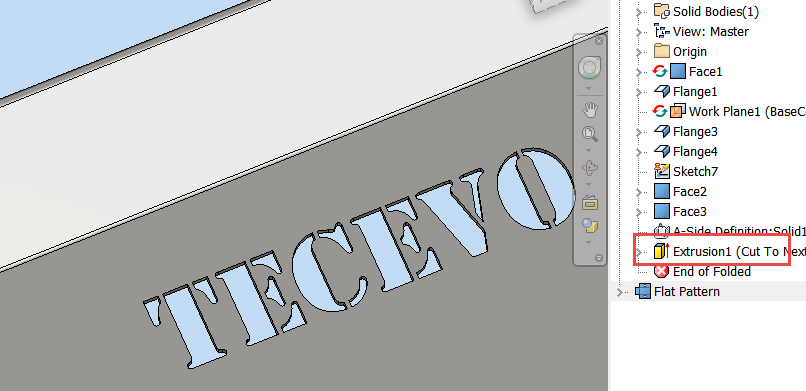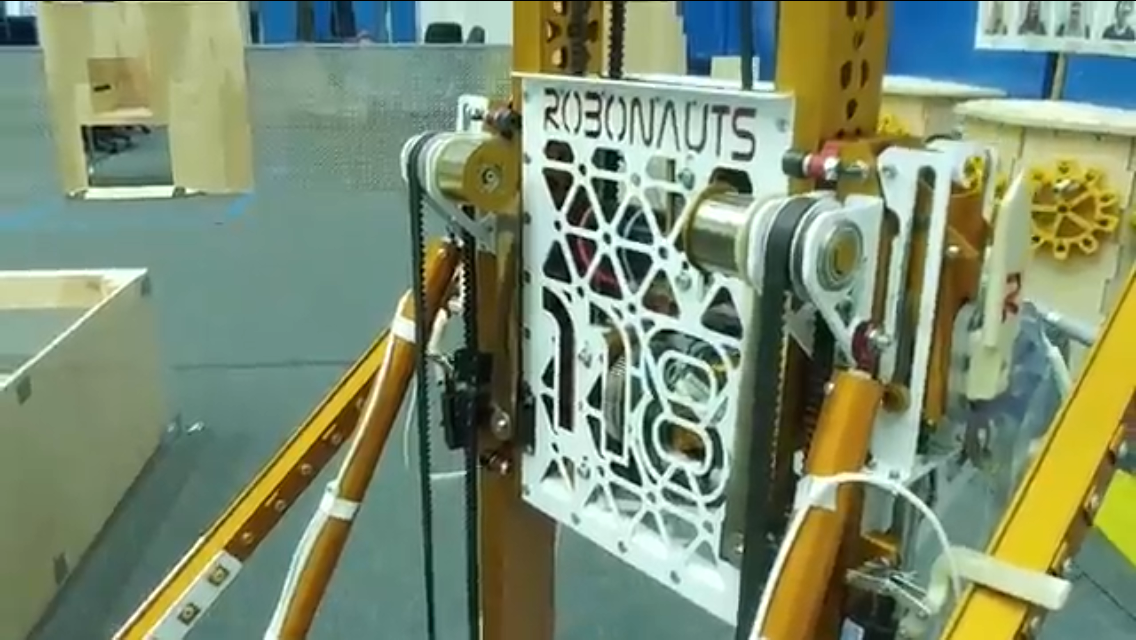
I’m trying to CAD up team number and some text in Solidworks and then route it in aluminum. What is the best font to use for this? A font that has no floating sections and such so it looks good once its routed. Or is there a better method for me to use for this?
Comic Sans. I’m not joking, it’s technically one of the best because of the rounded corners and wide letters. It looks terrible, but by definition it is one of the easier fonts to route out. I suggest finding something different, though.
Yeah I’m looking for the name of one of those fonts that looks very industrial and teams frequently use to route their numbers/names.
Something like this
Most teams should just draw the letters themselves. If you don’t feel like that, write whatever font your team logo is and add the fillets manually.
IWe use Agency in bold. It’s one of the few with a connected number 4. then we fillet all the inside corners to the bit radius and outside corners just enough to prevent them being sharp.
Although you might have a problem with the 6…
I’ve seen teams put a solid bar though the center of the number/letter to prevent cutouts. Like the O’s in Robonauts -
This is no joke, I use comic sans all the time when routing lettering with my cnc.
Look for a stencil font. Or you can manually draw in webbing in almost any font. A stencil just has it done for you.
This year on our robot we used the Death Star font for a vaguely Star Wars look. The characters are very distinct and have large stroke which is nice. Used it on our frame cutout, up the sides of our elevator, and with custom vinyl stickers for our bumper numbers. I manually added the supports and fillets for the parts we cut into aluminum.
I would recommend finding a font you like that has a decently large stroke size. Then fixing it manually by adding supports for floating pieces and filleting sharp corners. You will get a much better selection of good font options.
edit: the parts in question
Bank Gothic all the way man
Counter Strike font is what I use
We used Adobe Illustrator to create the text and then imported it into Solidworks. You can use whatever font you want, then manually round edges, add bars to connect isolated segments, etc. Would certainly recommend to any team that has access to Illustrator.